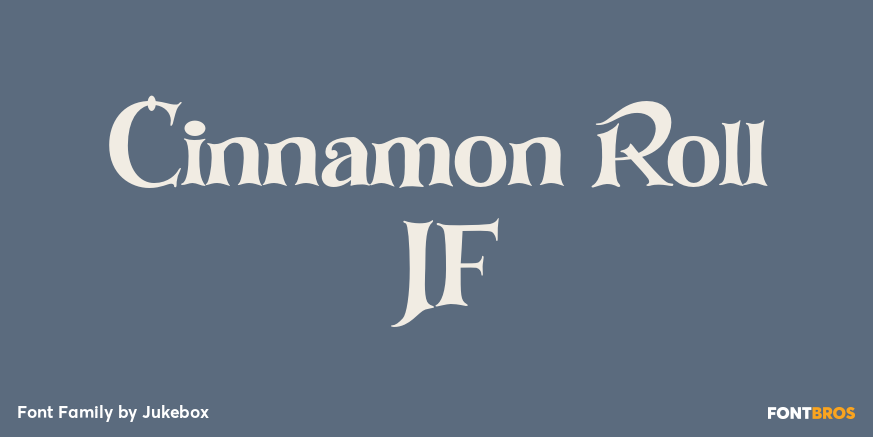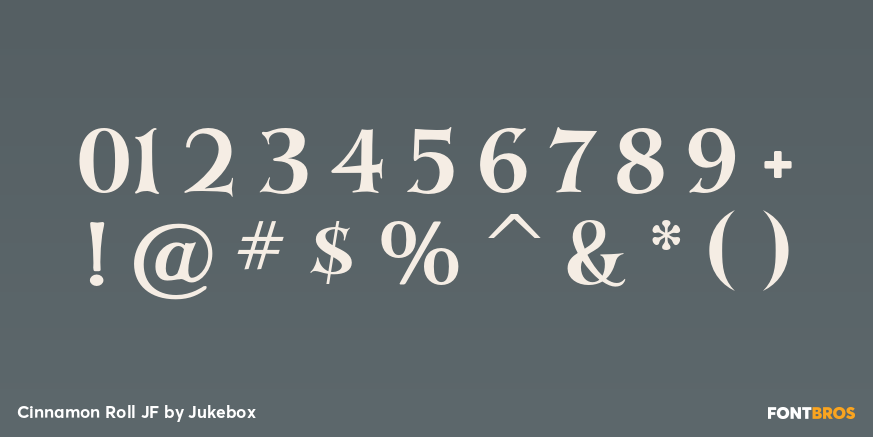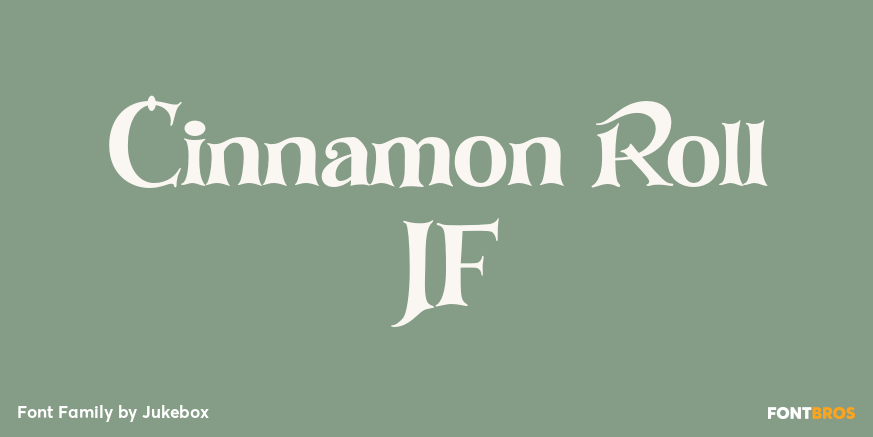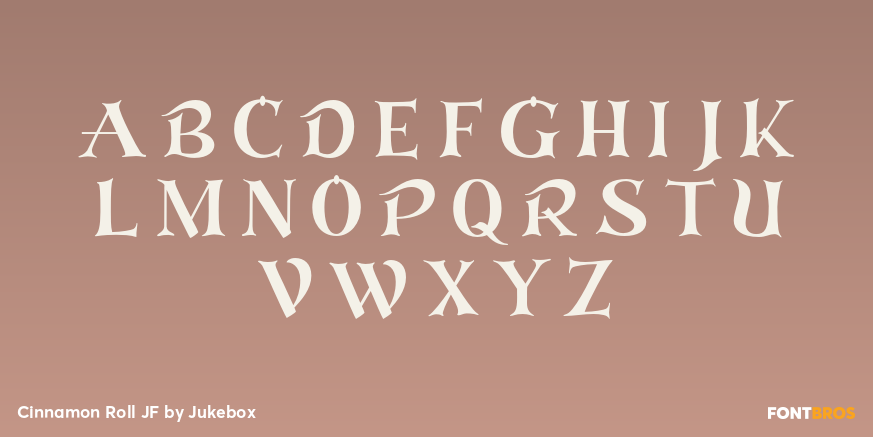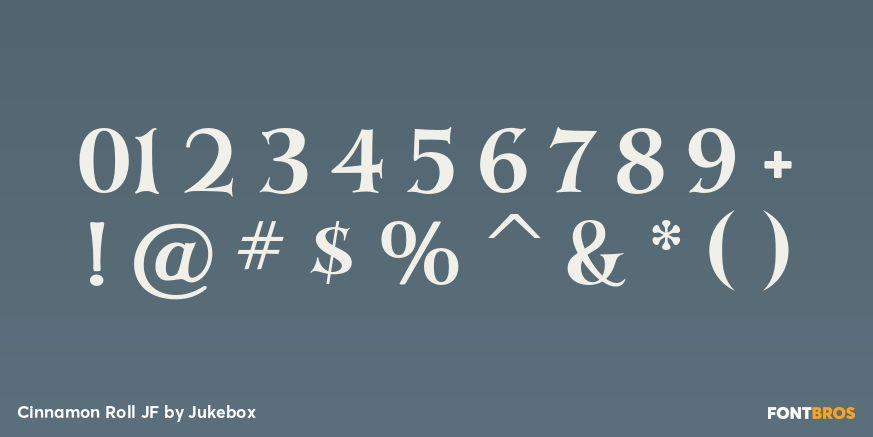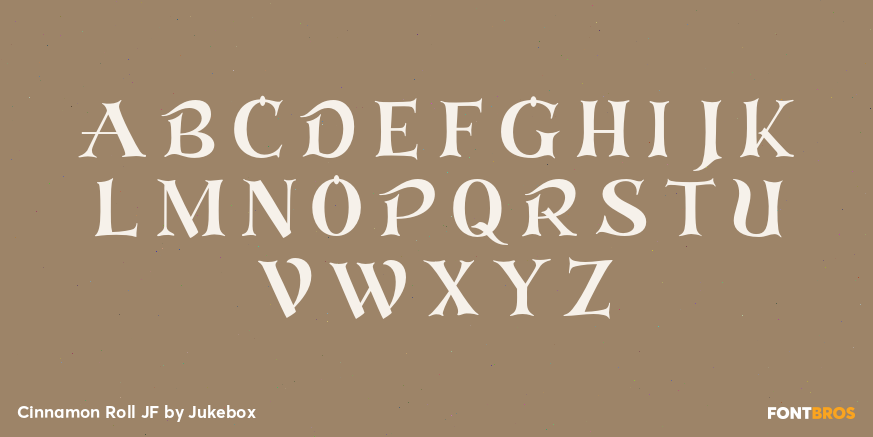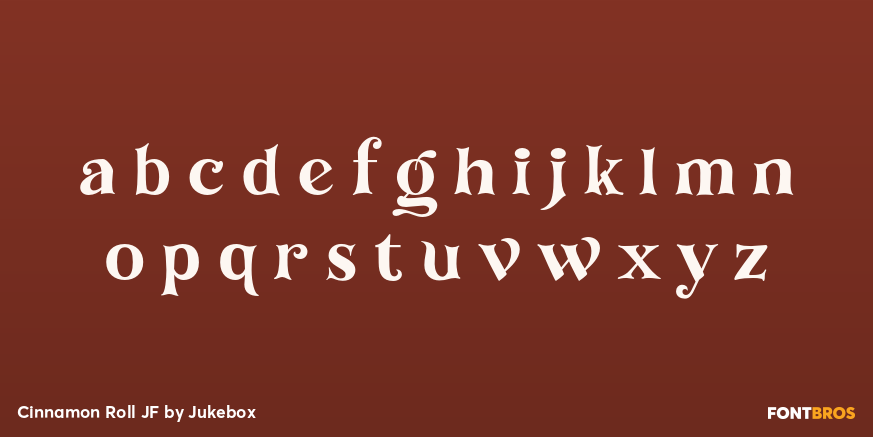
Cinnamon Roll JF
Font Family by Jukebox
Cinnamon Roll is a happy and whimsical font partially based on an old photo-typositing face. Starting with the limited character set I had of the original font (seen on the titles of a 1960s holiday animation) I filled in the rest with letters of my own design to match. The font contains a full set of Swash caps as well as some additional alternates. Cinnamon Roll gets its name from the curls at the end of the swash letters, that make me hungry for a warm frosted, well, you guessed it!